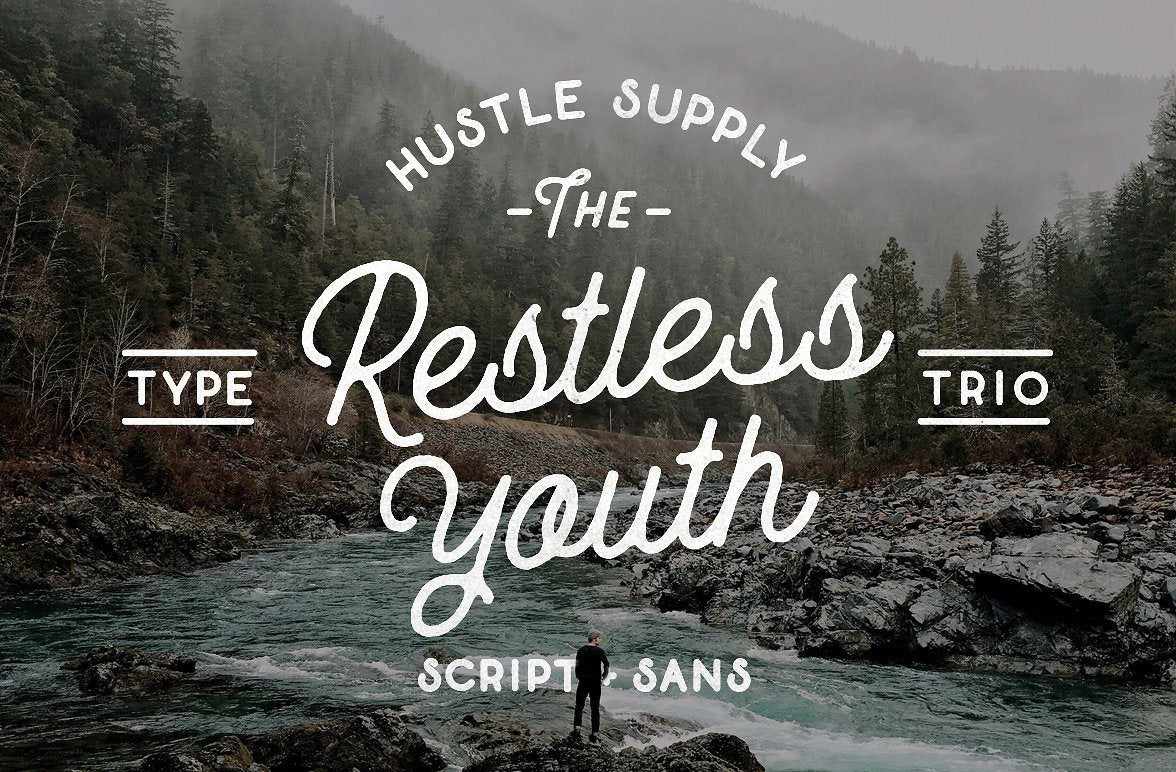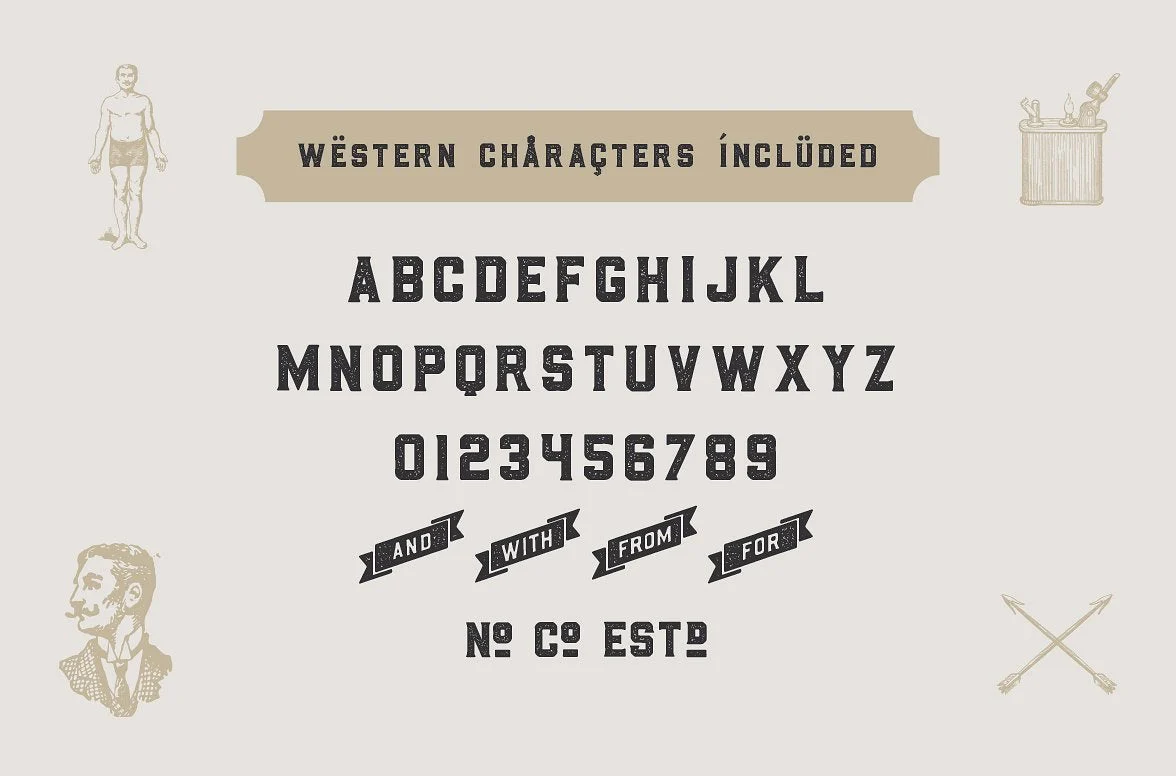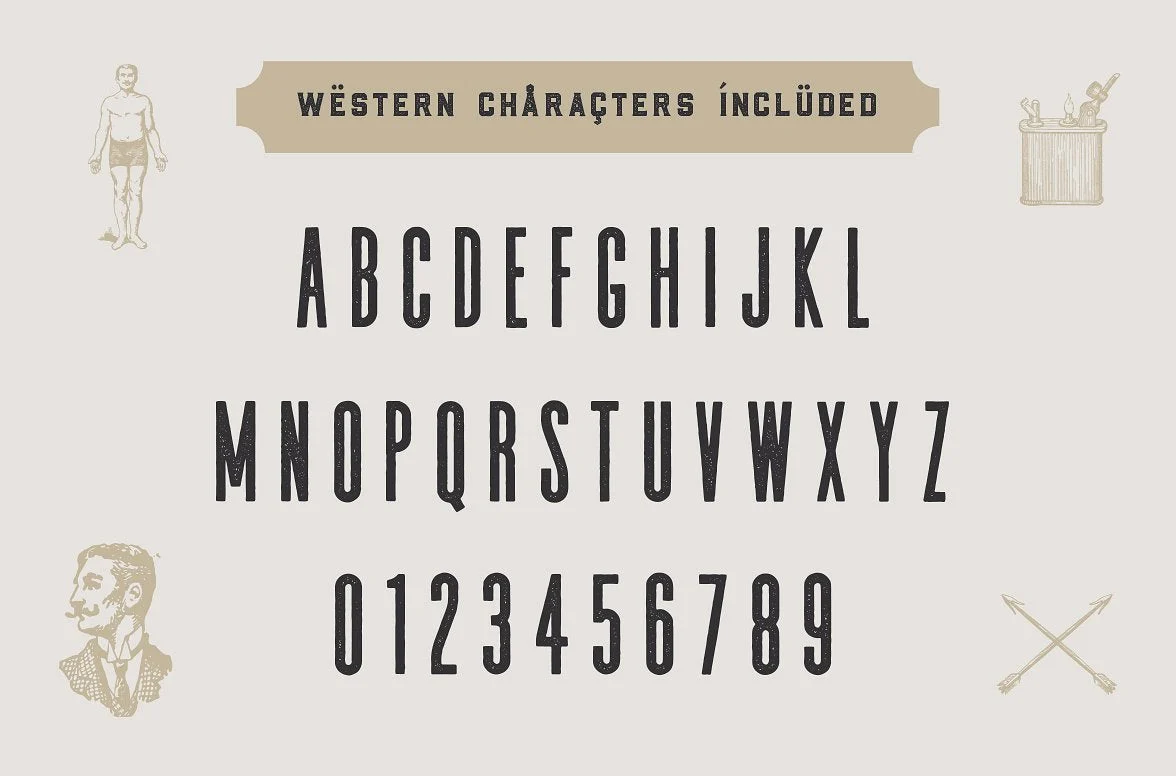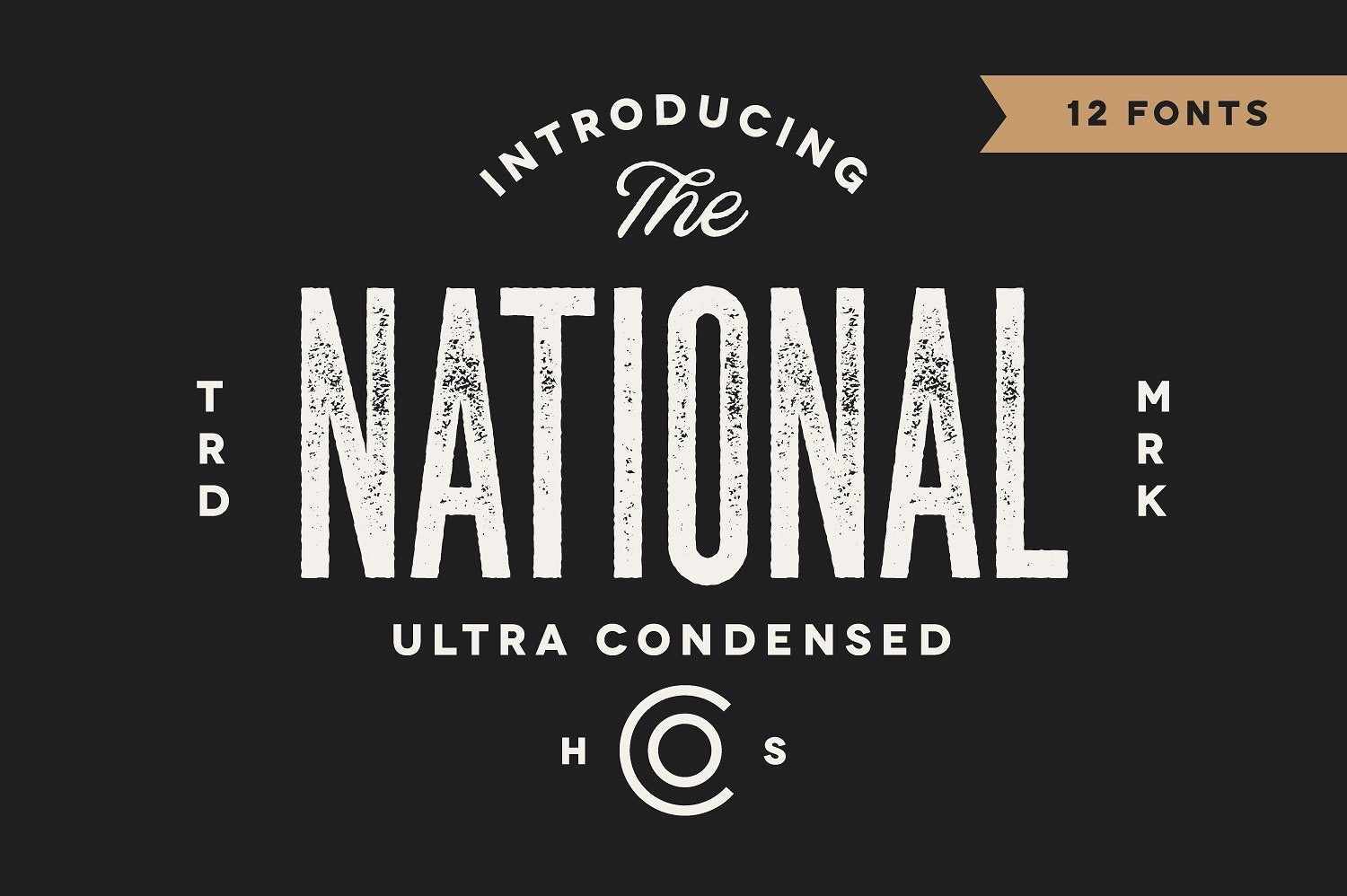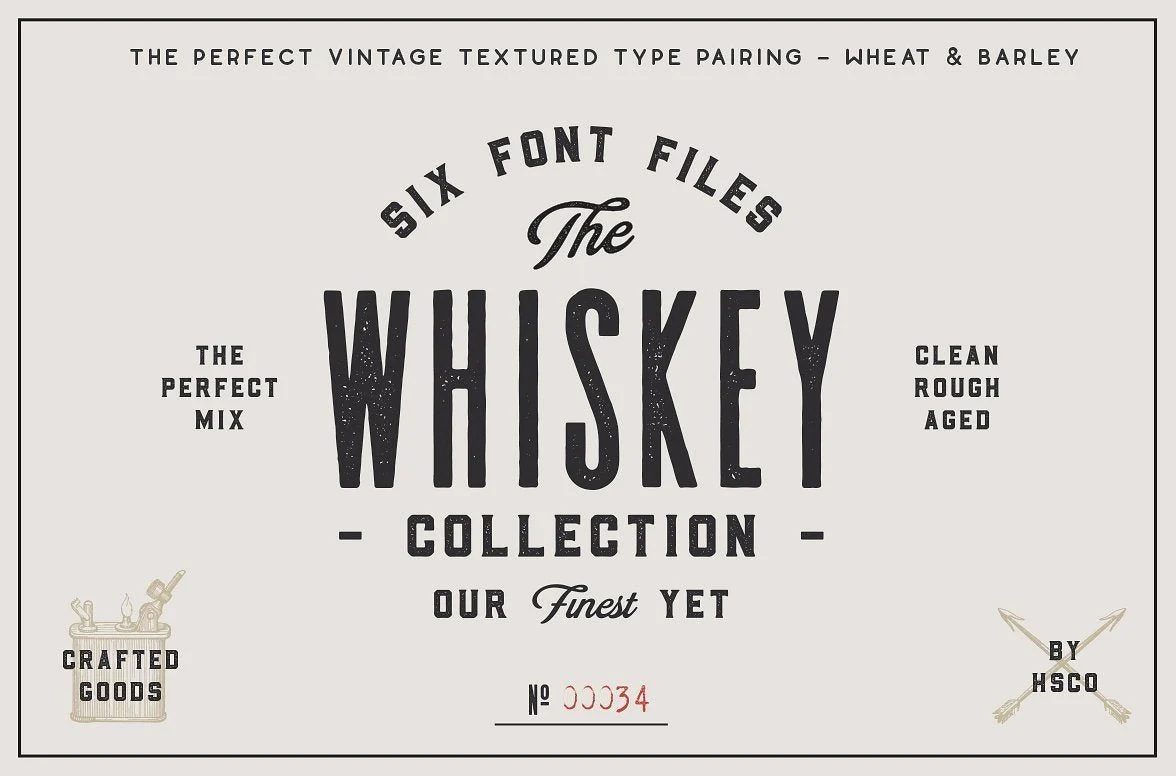
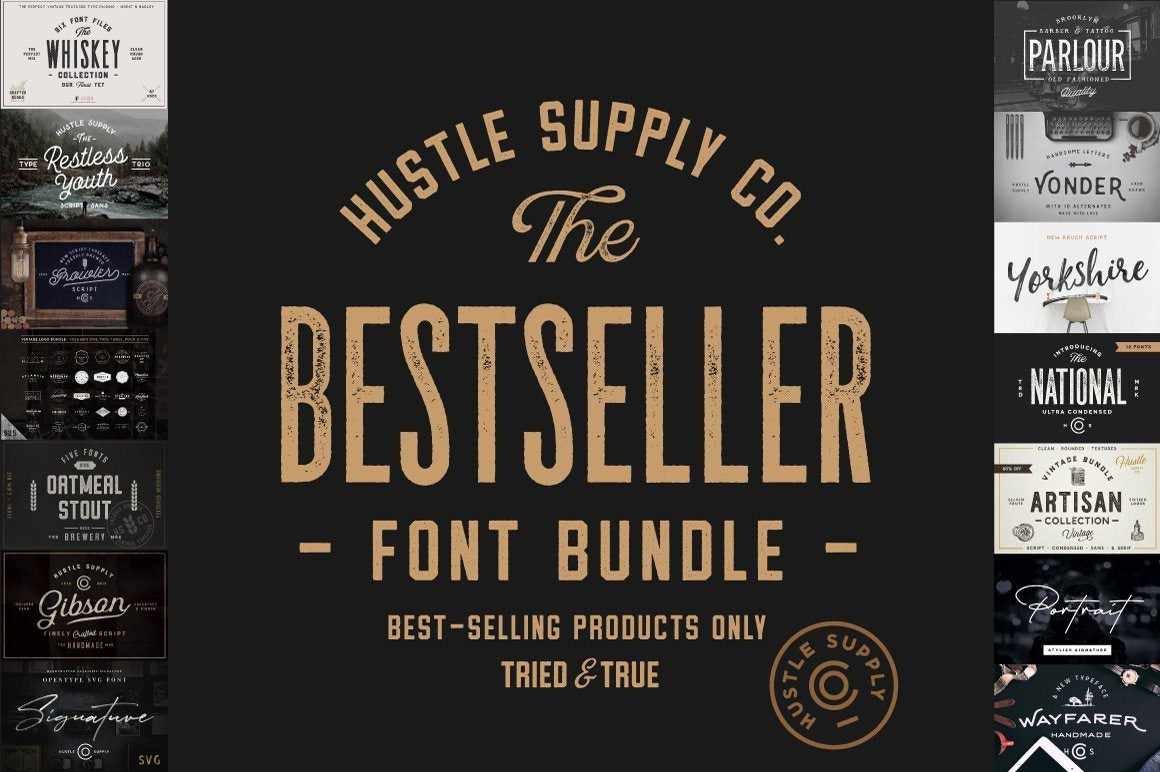
The Bestseller Font Bundle by HSCO
This is the most comprehensive, high quality bundle that Hustle Supply Co. has ever released.
- 18 typefaces created by Hustle Supply Co. including the famous Gibson Script, Growler Script, Hochstadt, JV Signature, Oatmeal Stout, Parlour Vintage Serif, Portrait Script, Restless Youth, Barley Script, Heinberg, Holtzman, Trade Supply, The National Condensed, Barley, Wheat, Wayfarer, Yonder, and Yorkshire (54 different fonts).
- 5 of the best-selling logo template kits of all time (created by Jeremy Vessey).
GIBSON SCRIPT
Gibson Script is an old-time inspired script typeface that pairs perfectly with bold, tough type. Absolutely awesome for labels & logos. I started creating typefaces for the use in branding projects and I think that Gibson is the font that my Type Collection was missing. Perfect for use in anything from Branding, Web, Packaging, Etc.
Includes Western Euro Characters, Swashes & A Rough Version!
GROWLER SCRIPT
Growler Script is a mono-weight script font heavily based on the modern era of type-based traditional logo design. This typeface was constructed for that very reason. Words that stand out beautifully, be it a venue on a flyer, name, company, etc.
Available in OTF format, made with Glyphs! This cursive font comes with multiple alternates for a more custom feel with a full glyph set and beautiful capital letters that will make each word look like custom lettering.
HOCHSTADT
A multi-lingual (Western European supported) typeface with 4 styles. Inspired by old whiskey labels, Höchstadt is a must have in your type collection.
It's industrial feel and multiple styles of serif and sans serif with oblique options give you a wide range of use cases for branding, bold web typography, advertising and apparel design.
JV SIGNATURE
This OpenType SVG typeface is incredibly realistic and allows you to instantly create a signature for yourself or your clients. The transparency made possible by the OpenType SVG format allows for hyper-realism.
With a complete alternate set of characters, you have even more options to create something that doesn't look typed.
OATMEAL STOUT
Created out of a love for beer labels. A versatile typeface that allows for multiple tasks on the vintage aesthetic.
Includes clean, rough, aged, rough aged, hatched rough so you have a collection of options that make Oatmeal Stout your next go-to typeface for your branding needs.
PARLOUR VINTAGE SERIF
A display typeface inspired by Movember, menswear brands, tattoo shops & barbers.
This versatile font is perfect for your next project. This font comes with the texture already applied and with a full alphabet, numbers, punctuation & other extra glyphs.
PORTRAIT SCRIPT
'Portrait' is a handwritten signature script with a natural & stylish flow. This collection of scripts is perfect for personal branding. It was made with the intention to be used by Photographers as a watermark for their Photography Business - Hence the name, 'Portrait'.
Perfect for personal branding, wedding invitations, and advertising.
RESTLESS YOUTH
The Restless Youth Bundle is comprised of 4 font files & 3 different type styles. Each can be paired together for an outstanding look! It's perfect for Logotypes & Type pieces.
That's exactly the reason why I decided to make this product. I've always been a stickler for finding the right sans serif to go with the script. There needed to be a consistency in style, texture, weight, etc. I think that The Restless Youth Bundle is perfect for people looking for this aesthetic.
BARLEY SCRIPT
Barley Script comes in both textured and clean version and was made to pair perfectly with Barley and Wheat. Includes alternates and swashes.
HEINBERG
A sans serif typeface inspired by letterpress. Comes in clean, rounded, and textured versions.
HOLTZMAN
A condensed sans serif, small caps font inspired by letterpress. Comes in clean, rounded and textured versions.
TRADE SUPPLY
A serif typeface with condensed capital letters. It comes in three versions- clean, rounded and textured.
THE NATIONAL CONDENSED
The National is an ultra condensed type family that includes Light, Regular & Bold versions. Each version contains a clean, textured (aged) and oblique version. With 3 weights and aged treatments, The National can give a diverse set of aesthetics. With light giving a much more modern, fashionable feel and the bold giving a more rugged vibe for whisky packaging.
WHEAT & BARLEY (THE WHISKEY COLLECTION)
Wheat and Barley two typefaces were literally made for each other. They work together to give you that perfect vintage label you've been designing. These are perfect for Logos, Advertising, Apparel Design, Labels, Signage, Etc.
YORKSHIRE
Yorkshire is a beautiful brush script created with both pen & brush to give a great contrast between thick and thin curves. Drawn, Scanned & Vectorized from paper to screen. An authentic brush typeface with texture and imperfections.
Yorkshire is perfect for scrap booking, wedding invitations, labels, logos, apparel and more.
THE VINTAGE BUNDLE
Includes 5 vintage logo kits that give you everything you need to build out a vintage inspired logo. Available for Adobe Illustrator CS5 and above.